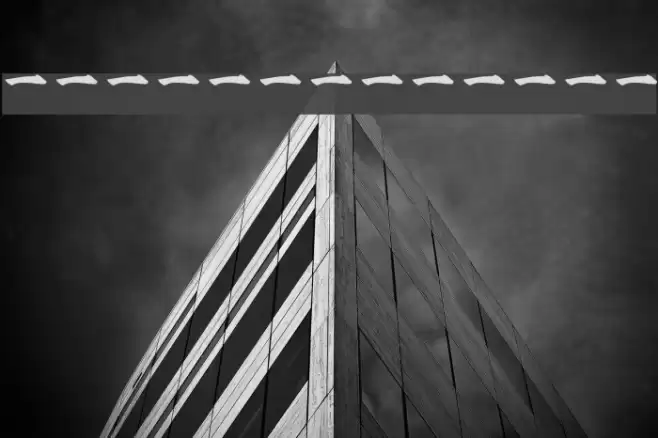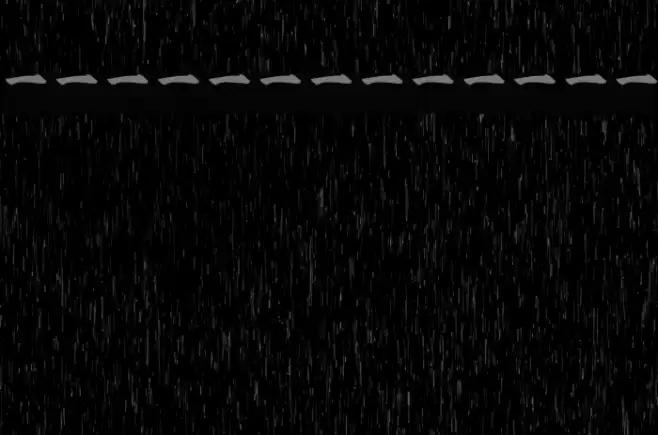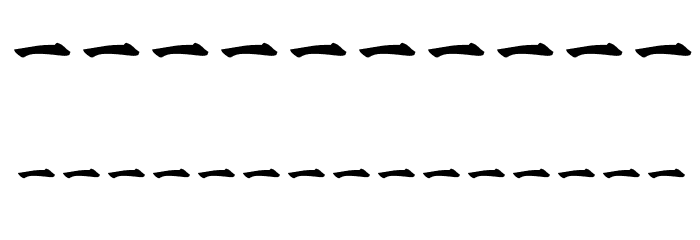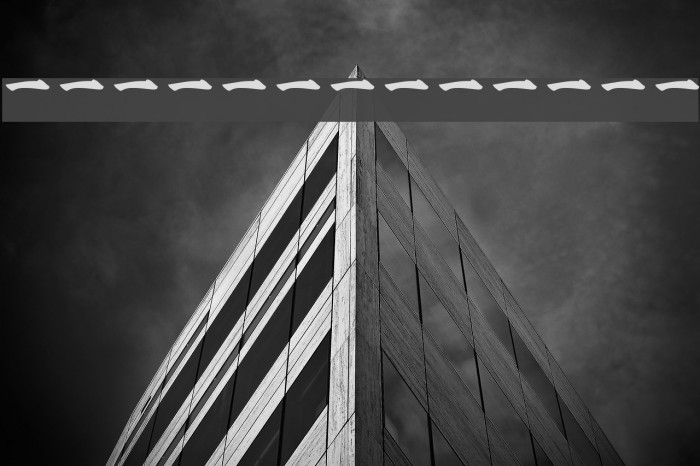
Kanji D Font
Kanji D Description
This design features a series of uniform, arrow-like shapes arranged in horizontal lines. Each shape is consistent in size and orientation, creating a rhythmic pattern across the image. The bold, black forms are evenly spaced, giving a sense of movement and direction. The simplicity and repetition of the design make it visually striking, yet easy to interpret. The overall appearance is modern and minimalistic, with a focus on geometric precision and clean lines. This pattern could be used effectively in various design contexts where a sense of direction or flow is desired.
A modern, minimalistic pattern of uniform arrow-like shapes in horizontal lines from Uncategorized fonts.
- Proposed Projects: Ideal for use in graphic design projects such as backgrounds, textiles, or digital interfaces where a sense of direction or movement is needed.
- Use Case: Patterns, Backgrounds, Textiles